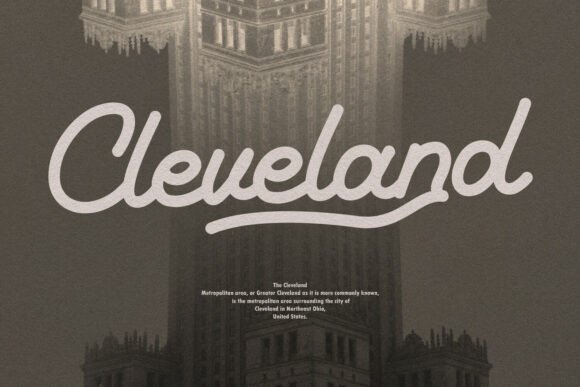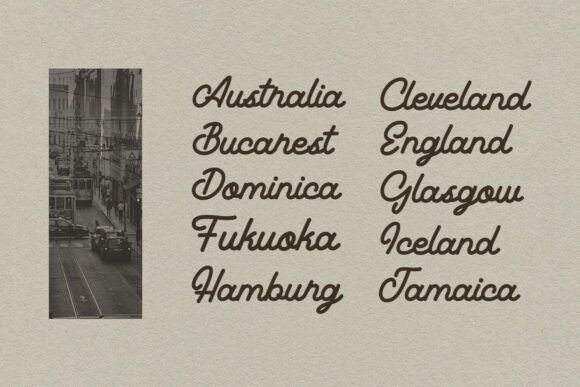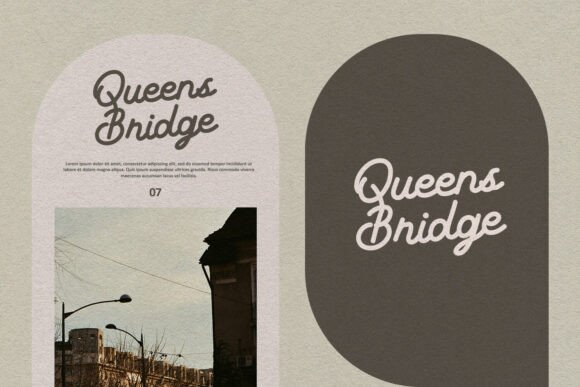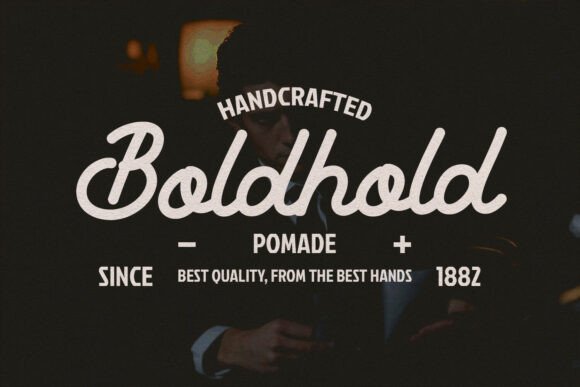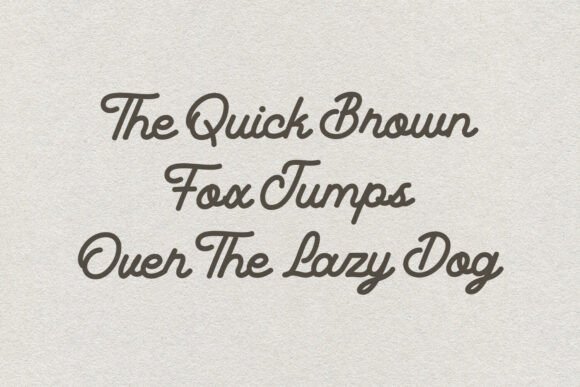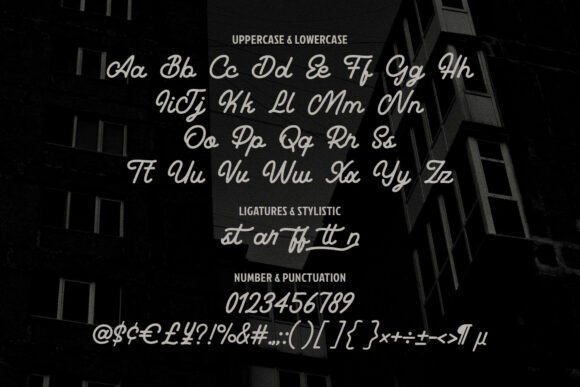
Introducing Banesten Font: A Timeless Retro Script for Your Branding Needs
In the world of typography, few fonts manage to evoke a sense of nostalgia and classic elegance as effectively as Banesten. This beautifully crafted vintage script font is designed to bring a touch of timeless retro flair to your branding projects, making it perfect for logos, whiskey labels, retro apparel, and signage. With its smooth curves, stylish alternates, and ligatures, Banesten is sure to elevate your designs and leave a lasting impression.
The Characteristics of Banesten Font
Banesten is more than just a font – it’s a carefully crafted tool designed to help you create stunning visual content. Here are some of its key features:
- Smooth Curves: Banesten boasts smooth, flowing curves that give it a distinctly retro feel. These curves add a touch of sophistication and elegance to your designs, making them perfect for high-end branding projects.
- Stylish Alternates: The font comes with a range of stylish alternates that allow you to add variety and creativity to your designs. Whether you’re looking to create a bold statement or a subtle nuance, Banesten’s alternates have got you covered.
- Ligatures: Banesten also features a range of ligatures that help to create a seamless, connected look. These ligatures are perfect for creating beautiful, flowing text that draws the eye.
- Multilingual Support: In today’s global marketplace, it’s more important than ever to have a font that can support multiple languages. Banesten delivers, with comprehensive multilingual support that makes it easy to communicate with your audience, no matter where they’re from.
Perfect for a Range of Design Applications
Banesten’s versatility makes it perfect for a wide range of design applications. Here are just a few ideas to get you started:
- Logos: Create a lasting impression with a custom logo that showcases your brand’s personality. Banesten’s elegant curves and stylish alternates make it perfect for creating a sophisticated, high-end logo.
- Whiskey Labels: Add a touch of class to your whiskey labels with Banesten’s vintage script. The font’s smooth curves and ligatures evoke a sense of nostalgia and tradition, making it perfect for craft distilleries and premium spirits brands.
- Retro Apparel: Create a bold, eye-catching design with Banesten’s stylish alternates and ligatures. The font’s retro flair makes it perfect for vintage-inspired clothing and accessories.
- Signage: Make a statement with Banesten’s elegant script. The font’s smooth curves and classic elegance make it perfect for creating eye-catching signage that draws the eye.
Why Choose Banesten Font?
With so many fonts on the market, it’s hard to know which one to choose. Here are just a few reasons why Banesten stands out:
- Timeless Elegance: Banesten’s classic elegance ensures that your designs will never go out of style. The font’s smooth curves and stylish alternates evoke a sense of nostalgia and sophistication that will continue to impress for years to come.
- High-Quality Craftsmanship: Banesten is a handcrafted font, carefully designed to deliver exceptional quality and attention to detail. The result is a font that looks beautiful in both print and digital formats.
- Versatility: Banesten’s versatility makes it perfect for a wide range of design applications. Whether you’re creating a logo, label, or signage, the font’s elegant script and stylish alternates make it easy to create stunning visual content.